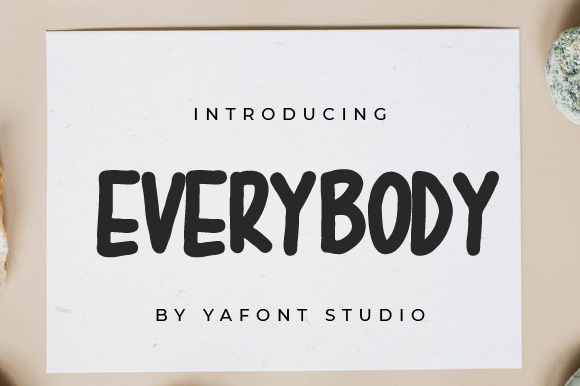
The Font that Brings Your Creativity to Life: A Deep Dive into Everybody Font
I still remember the frustration of working on a project, pouring my heart and soul into it, only to feel like something was missing. The design was sleek, the colors were vibrant, but the font just wasn’t doing it for me. I was on a deadline, and my client was breathing down my neck, asking for that “special something” that would make the design pop. That’s when I stumbled upon the Everybody font, and it was love at first sight! ✨
An Honest Review of Everybody Font
So, what makes Everybody font so special? Let’s dive into the good stuff and, of course, the not-so-good stuff. 😉
What I Love About Everybody Font
- ✅ Simple yet Impactful: Everybody font is a neat and simple display font that packs a punch. It’s perfect for adding a touch of elegance to your designs without overpowering them.
- ✨ Versatile: This font is incredibly versatile and can be used for a wide range of projects, from branding and advertising to crafting and DIY tutorials.
- 💡 Easy to Read: Despite being a display font, Everybody is surprisingly easy to read, even at smaller sizes.
While Everybody font is amazing, it’s not perfect. Here are a few things to keep in mind:
- 🤔 Limited Use Cases for Body Text: While Everybody font is great for headings and titles, it’s not the best choice for body text. It’s a display font, after all! ⚠️
- ⚠️ May Not Work Well with All Backgrounds: As with any font, you may need to experiment with different background colors or textures to ensure the text stands out.
One of the best things about Everybody font is its support for OpenType features and glyphs. These features allow you to add extra flair to your text without having to manually create each variation. Some common OpenType features you might find in Everybody font include:
- Ligatures: These are special character combinations that can help improve the flow of your text.
- Stylistic alternates: These allow you to swap out certain characters for alternate versions, giving your text a bit more personality.
- Swashes: These are decorative flourishes that can add a touch of elegance to your text.
The Backstory Behind Everybody Font
While I couldn’t find any information on the exact design story behind Everybody font, it’s clear that it was created with the intention of being a simple, yet impactful display font. Whether it was designed for a specific project or just a passion project, it’s clear that Everybody font has made a big impact on the design community.
| Font Name | Everybody Font |
| Author | Ciriative |
Q: Can I use Everybody font for body text?
A: While Everybody font is beautiful, it’s primarily designed for display use. For body text, you may want to choose a font that’s more optimized for readability.
Q: Does Everybody font support OpenType features?
A: Yes! Everybody font supports OpenType features, including ligatures, stylistic alternates, and more.